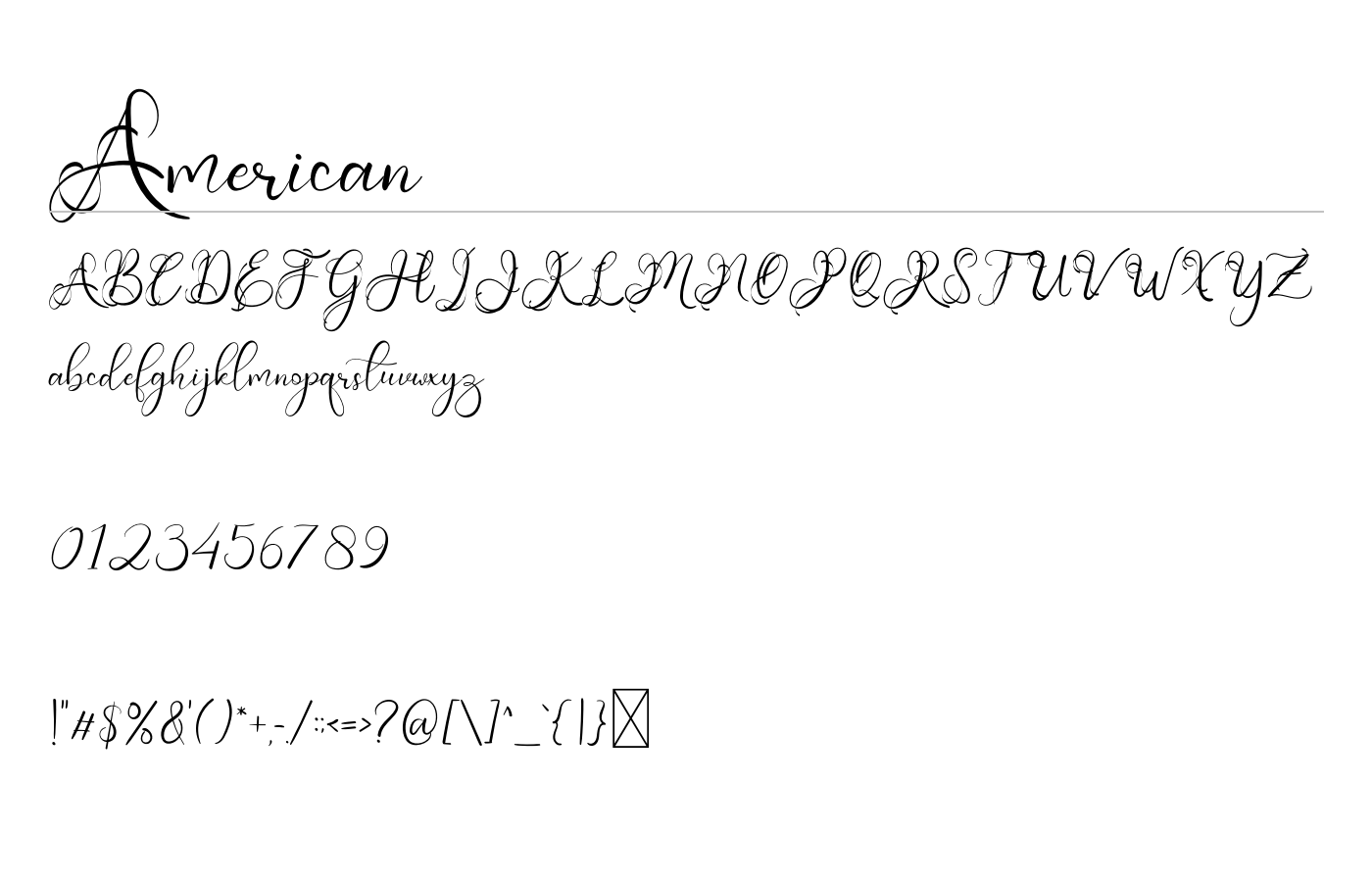
American Font is an elegant, delicate script typeface characterized by its flowing, ornate letterforms with fine hairline strokes and graceful curves. Its stylish uppercase letters feature decorative swirls, while the lowercase has a smooth, handwritten feel, making it perfect for luxury branding, wedding invitations, and sophisticated editorial designs where a refined, personal touch is desired.
American Font